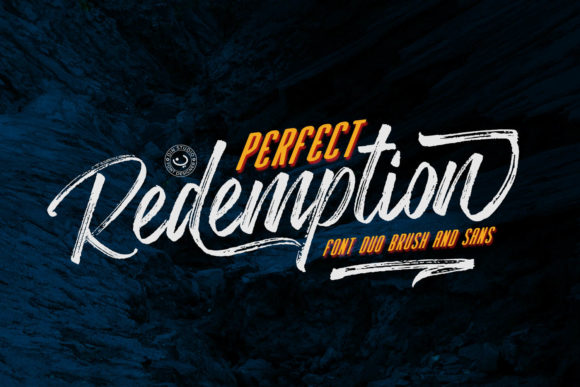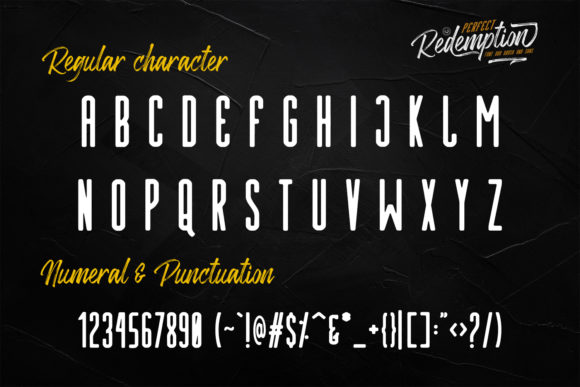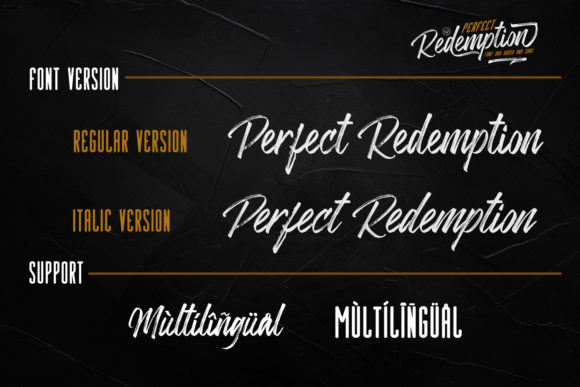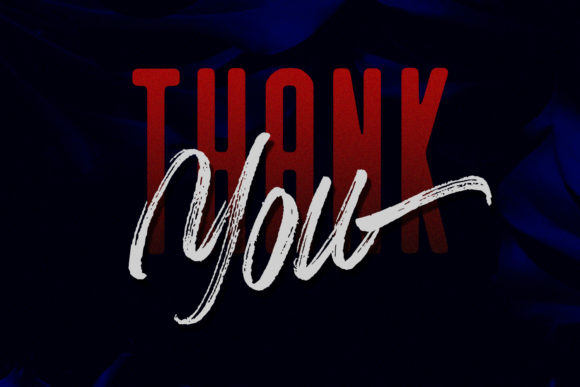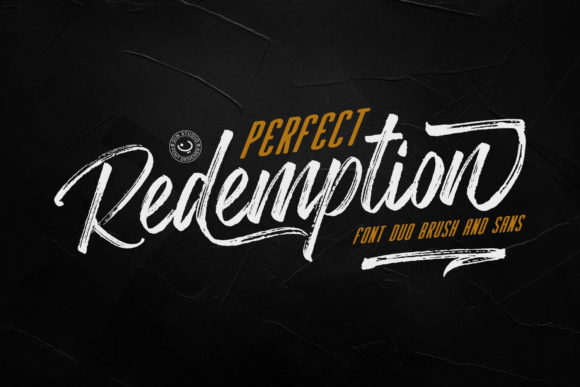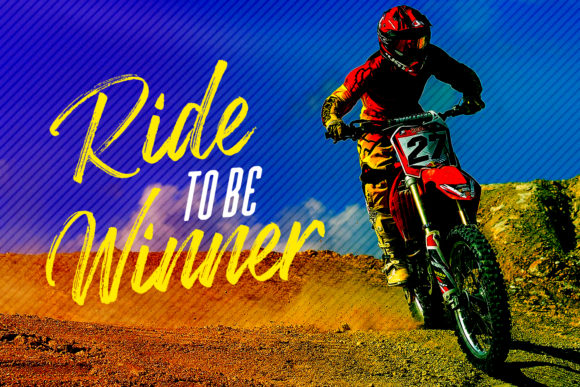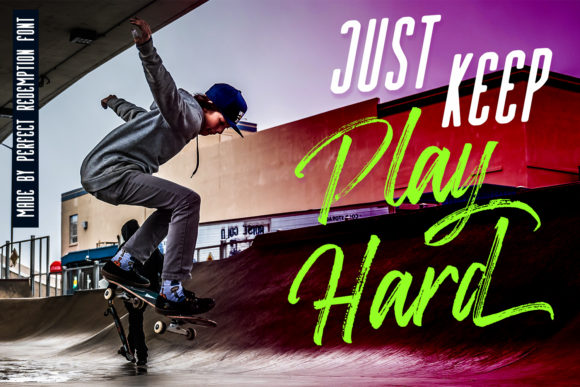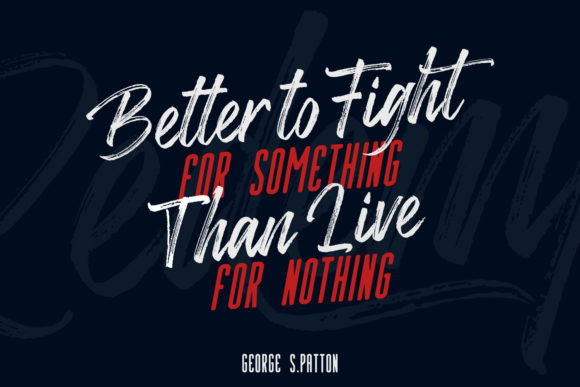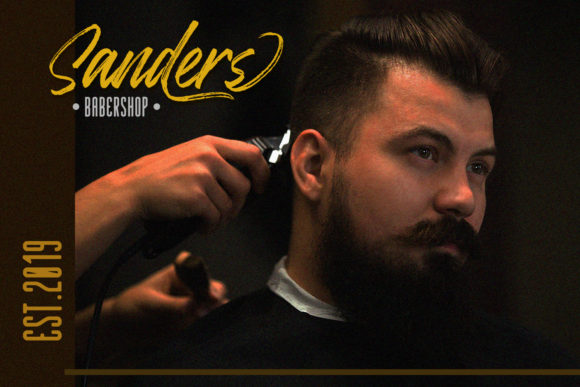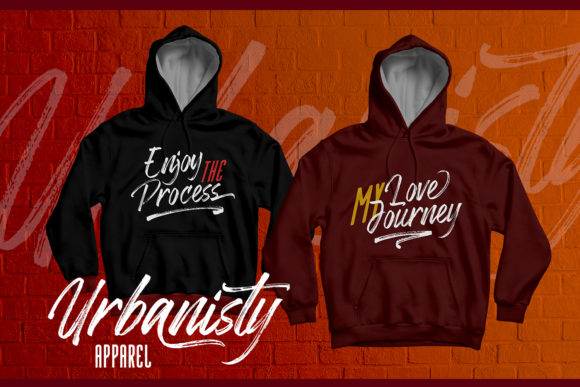
Perfect Redemption Duo Font
About Perfect Redemption Duo Font
The stunning Perfect Redemption Duo combines a bold brush and modern sans font. When combined, these two fonts will turn any design project into a stand out!